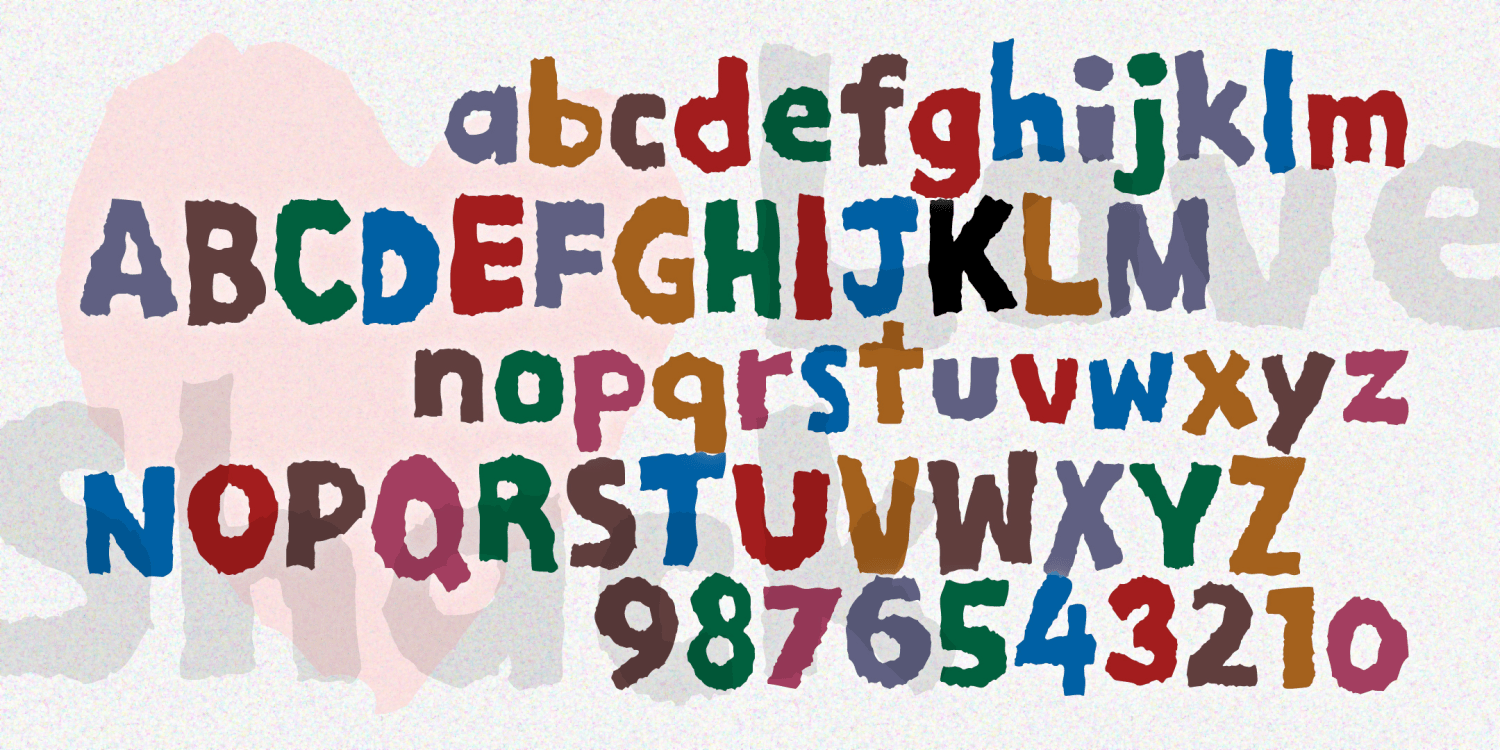
Love Shack
LOVE SHACK is a playful and friendly font with the handmade texture of roughly painted sign. To design the letters, I started by tearing them from construction paper, giving them a quirky design and an irregular edge.
The original inspiration for the font came from the former logo of restaurant chain. I loved the casual letterforms and the crunchy edge.
Love Shack includes 222 glyphs.